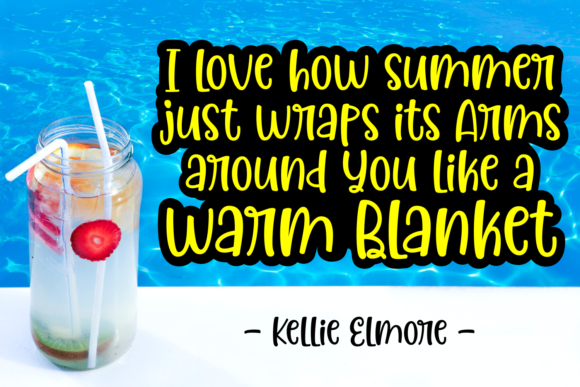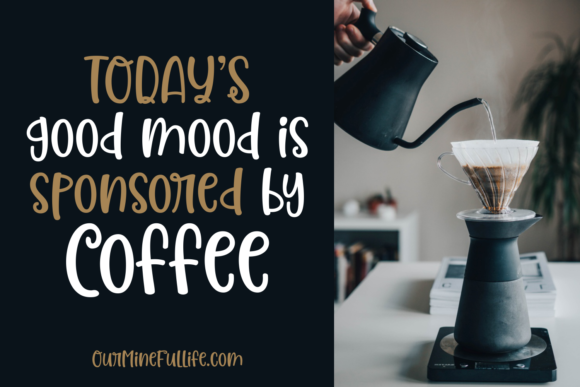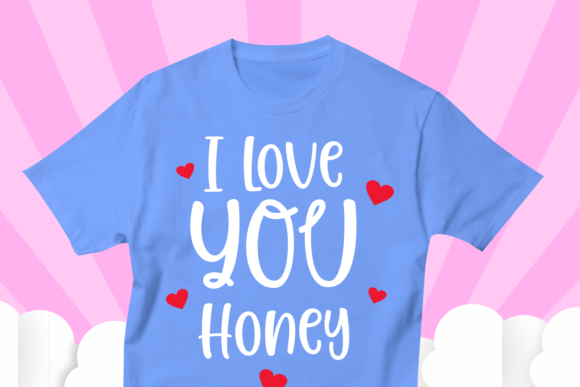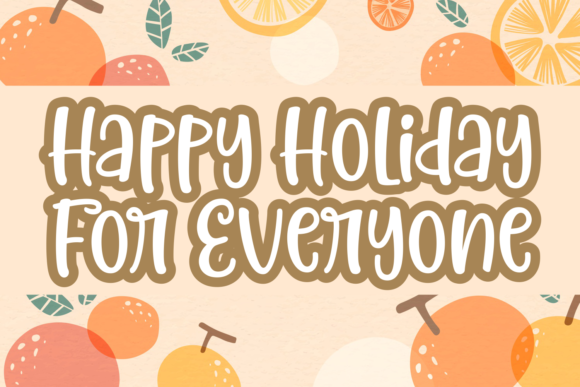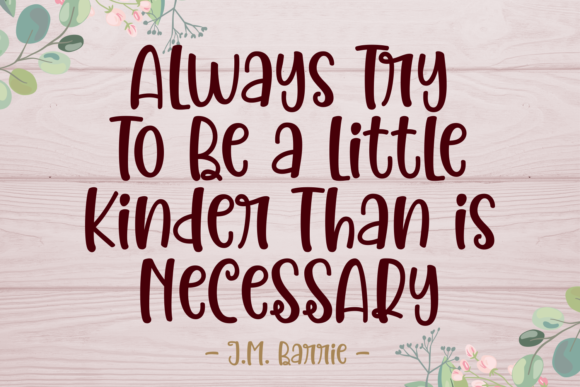
Introduction to Milkshake Blueberry Font Font
Fonts play a crucial role in design, and the Milkshake Blueberry Font font is a typeface that brings both character and versatility to any project. Whether you’re working on a branding project, a website, or a print design, the Milkshake Blueberry Font font offers a unique style that can elevate your work.
Milkshake Blueberry is a fun and quirky handwritten font.
Itβs playfulness make it great for creative projects, be it inspirational wall posters or for communicating your brand .
Key Features of Milkshake Blueberry Font Font
Why Choose Milkshake Blueberry Font Font?
The Milkshake Blueberry Font font is more than just a typeface β it’s a design tool that helps you communicate your message with style and clarity. Its unique character set and versatile design make it suitable for a wide range of applications, from elegant invitations to bold headlines.
With its carefully crafted letterforms and balanced proportions, the Milkshake Blueberry Font font ensures readability and visual appeal across all mediums.
What makes Milkshake Blueberry Font font special?
The Milkshake Blueberry Font font stands out with its unique design, exceptional readability, and versatility across various design applications.